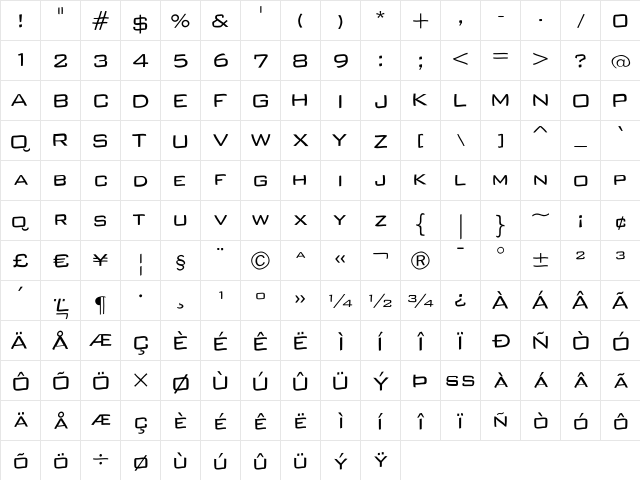
TheBroadWay Regular
Design Context for TheBroadWay Typeface
TheBroadWay offers clean, dependable letterforms without strong stylistic allegiance, making it a practical choice for designers who need flexibility.